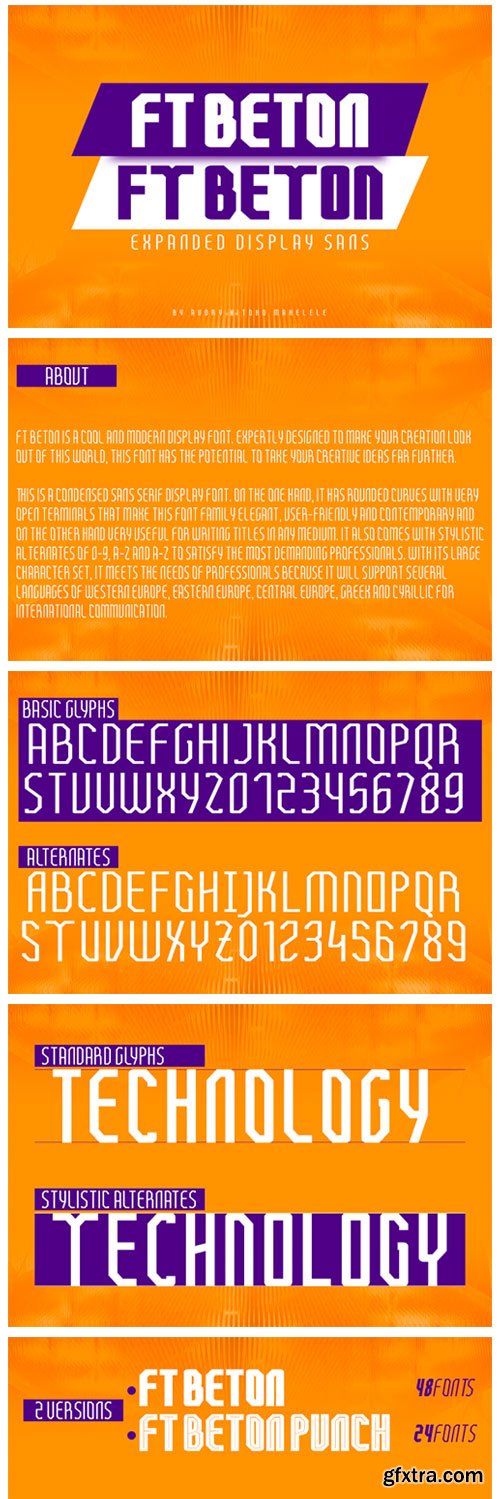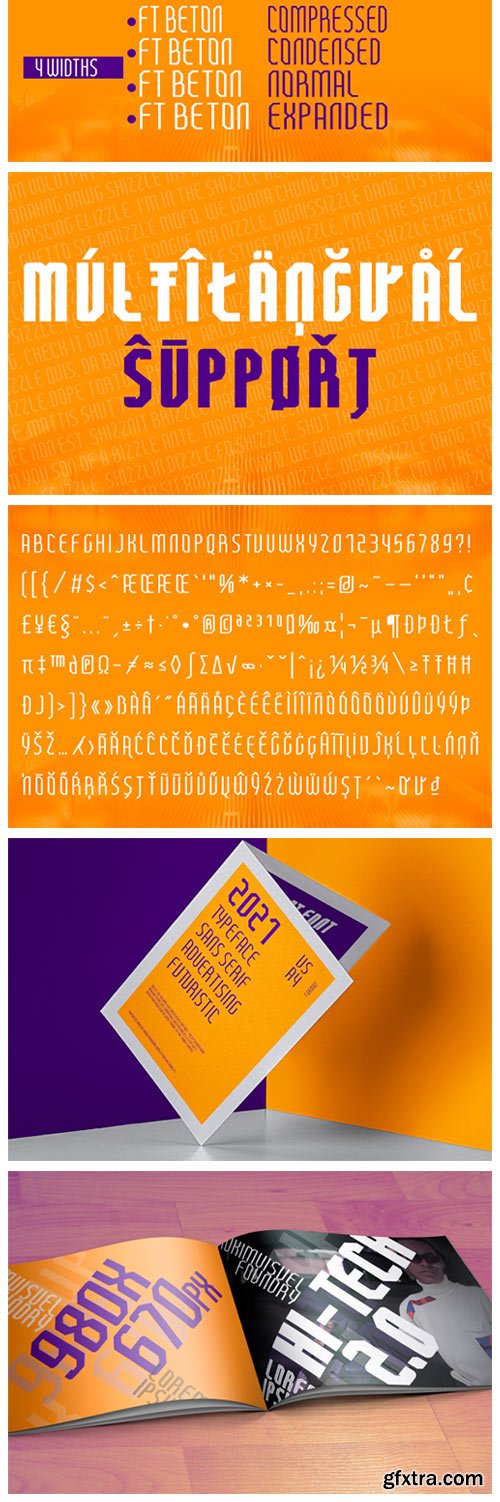
FT Beton Expanded Font Family
FT Beton is a cool and modern display font. No matter the topic, this font will be an incredibly asset to your fonts’ library, as it has the potential to make any creation stand out.FT Beton is a cool and modern display font. No matter the topic, this font will be an incredibly asset to your fonts’ library, as it has the potential to make any creation stand out.